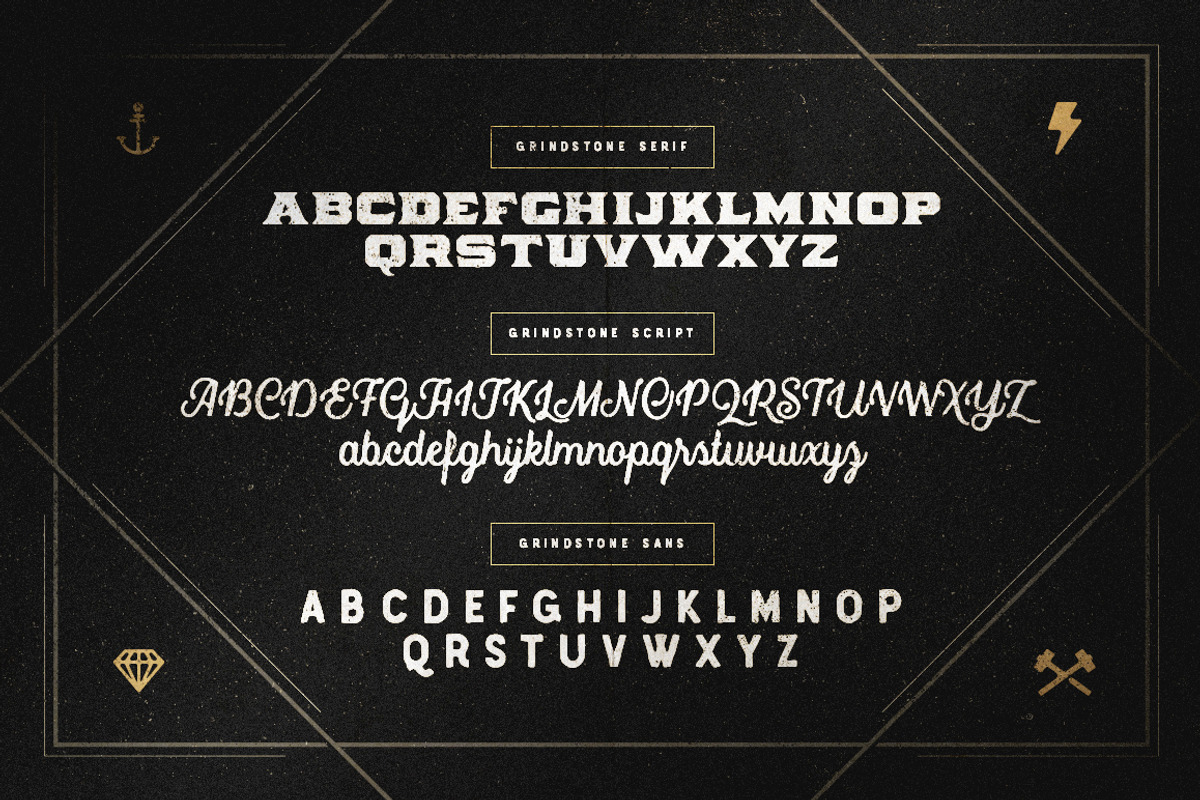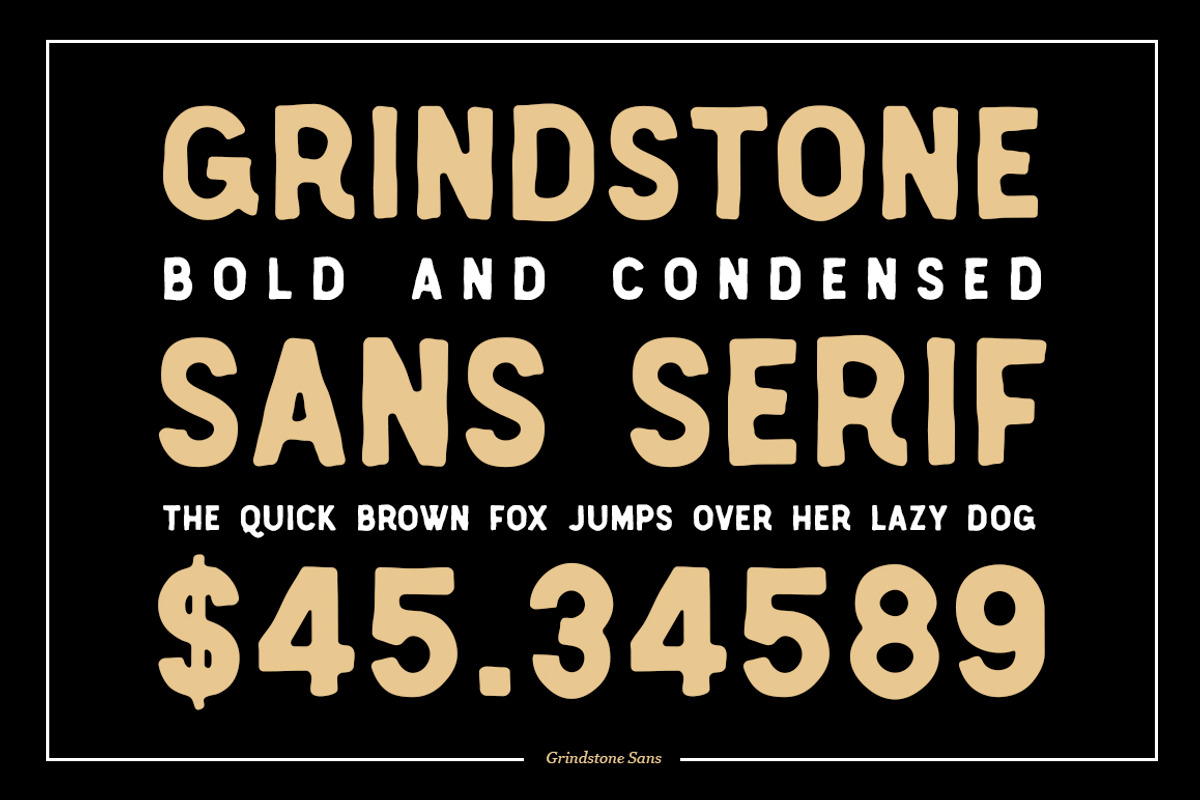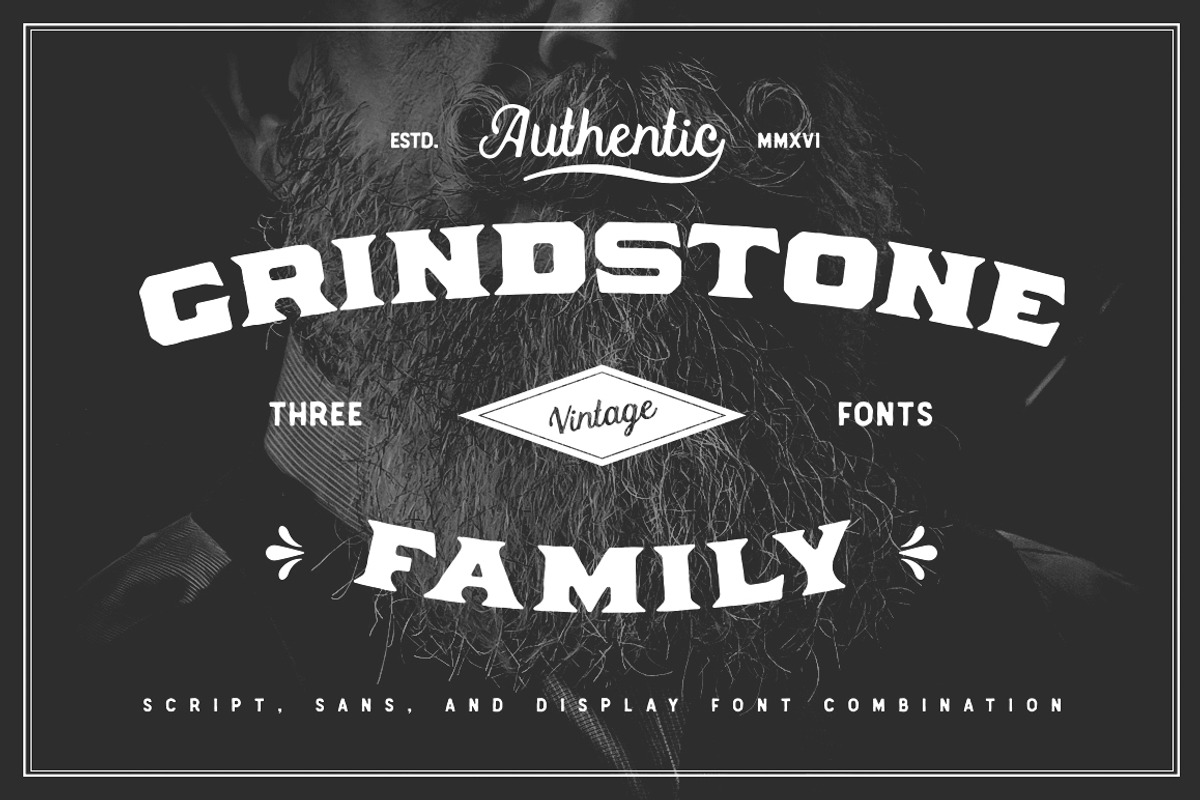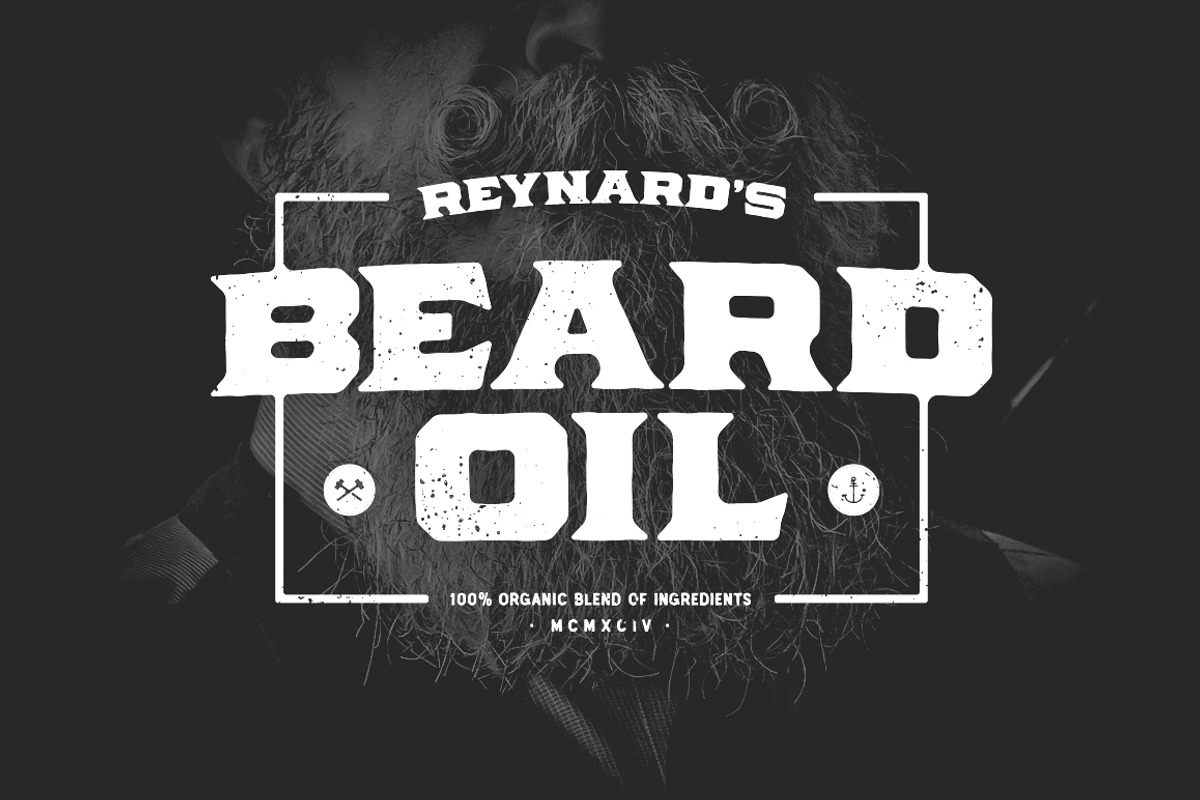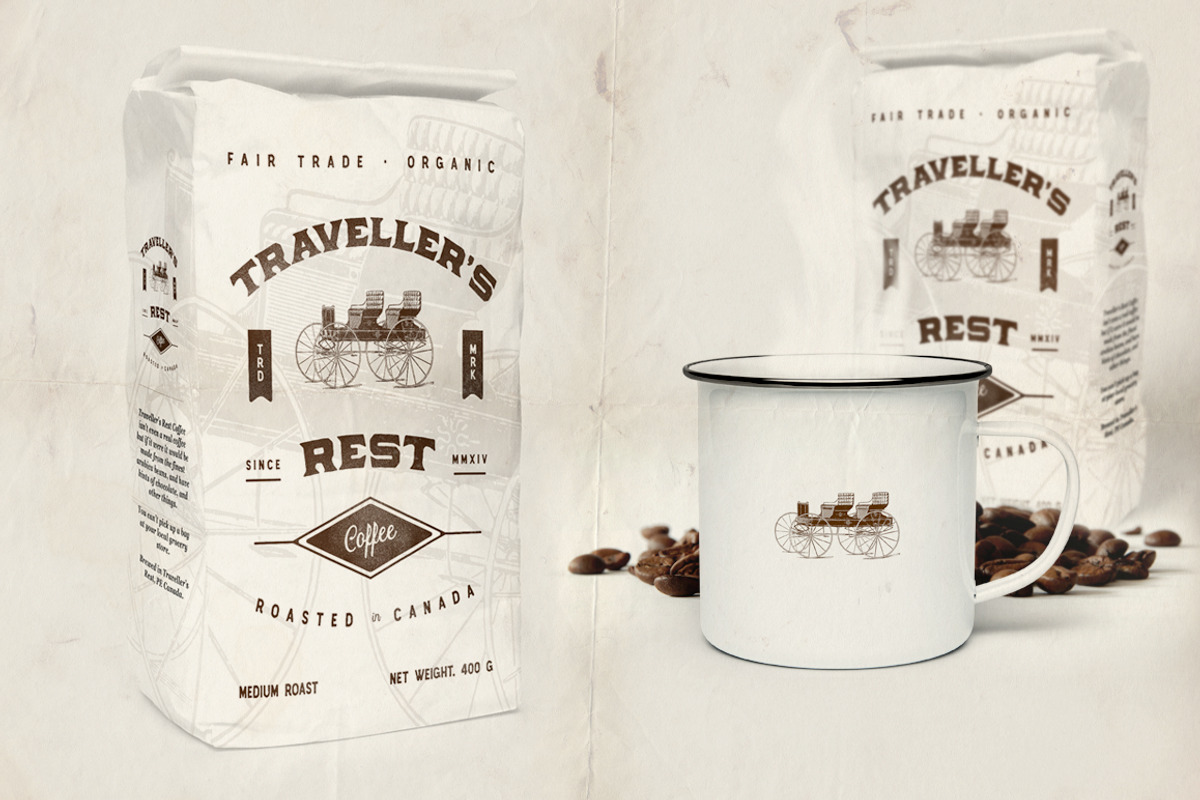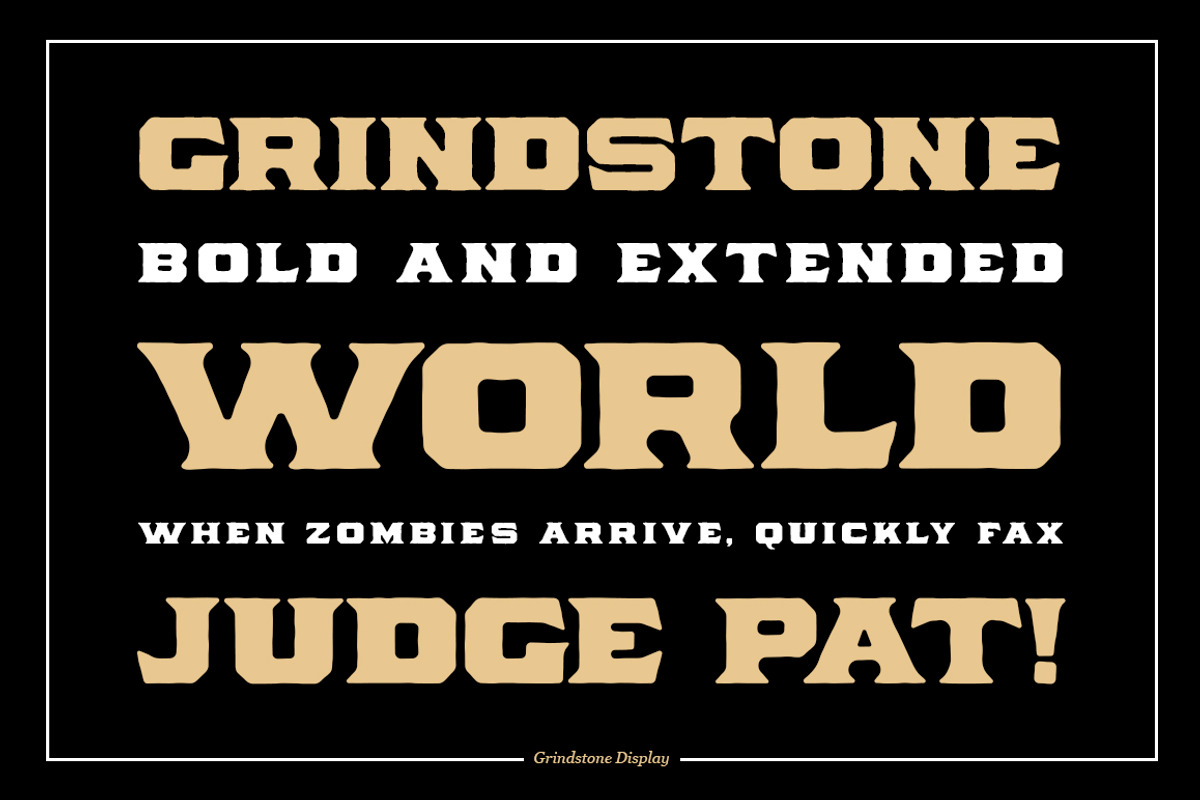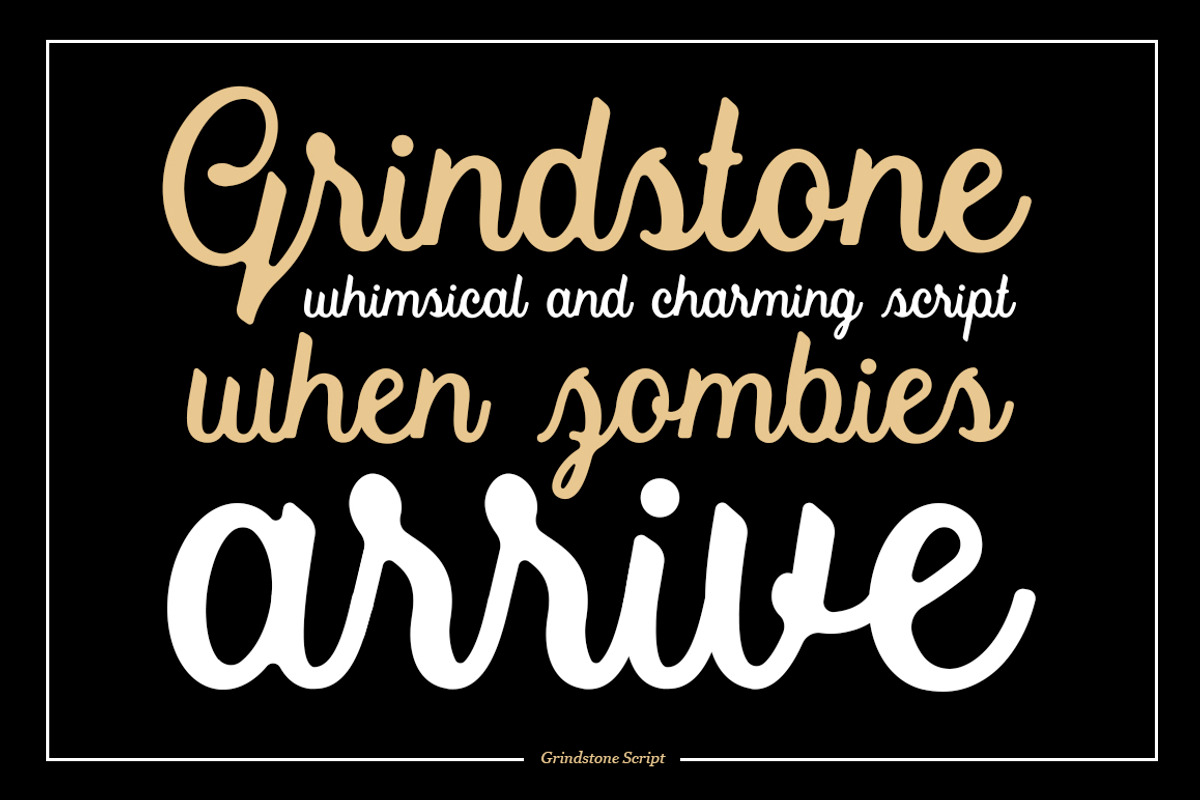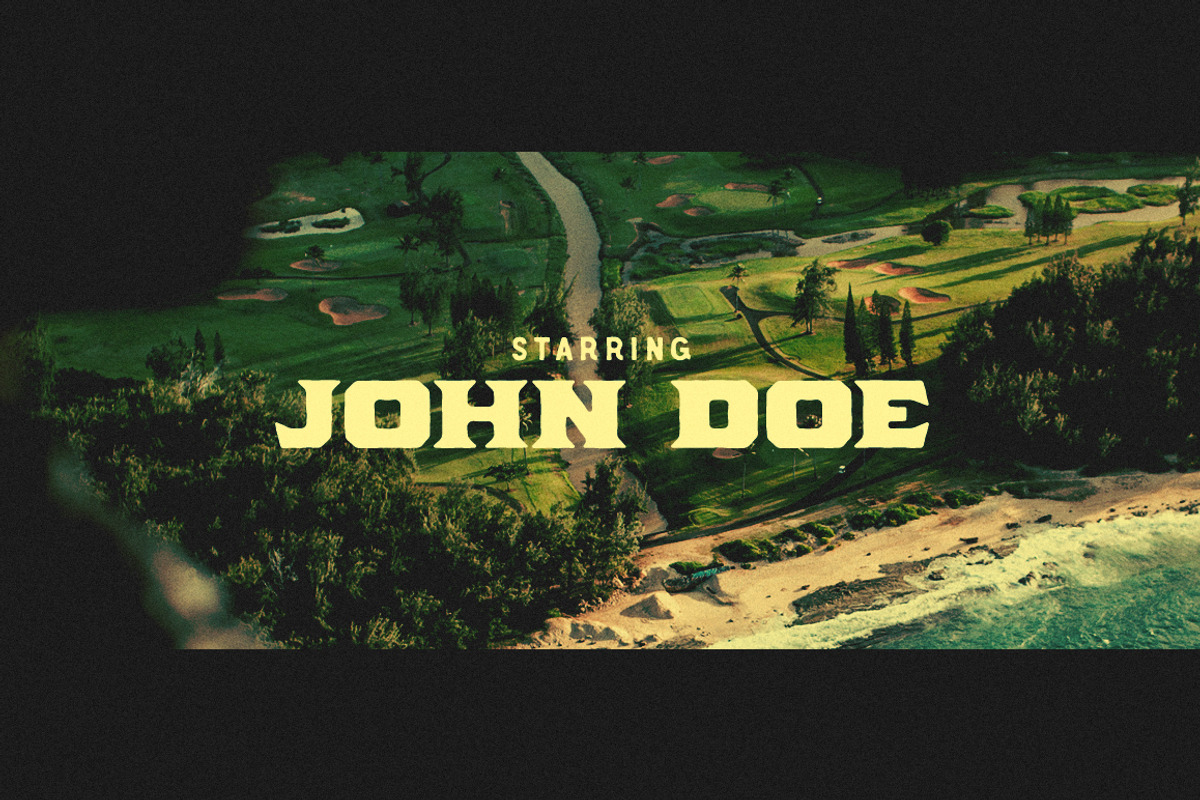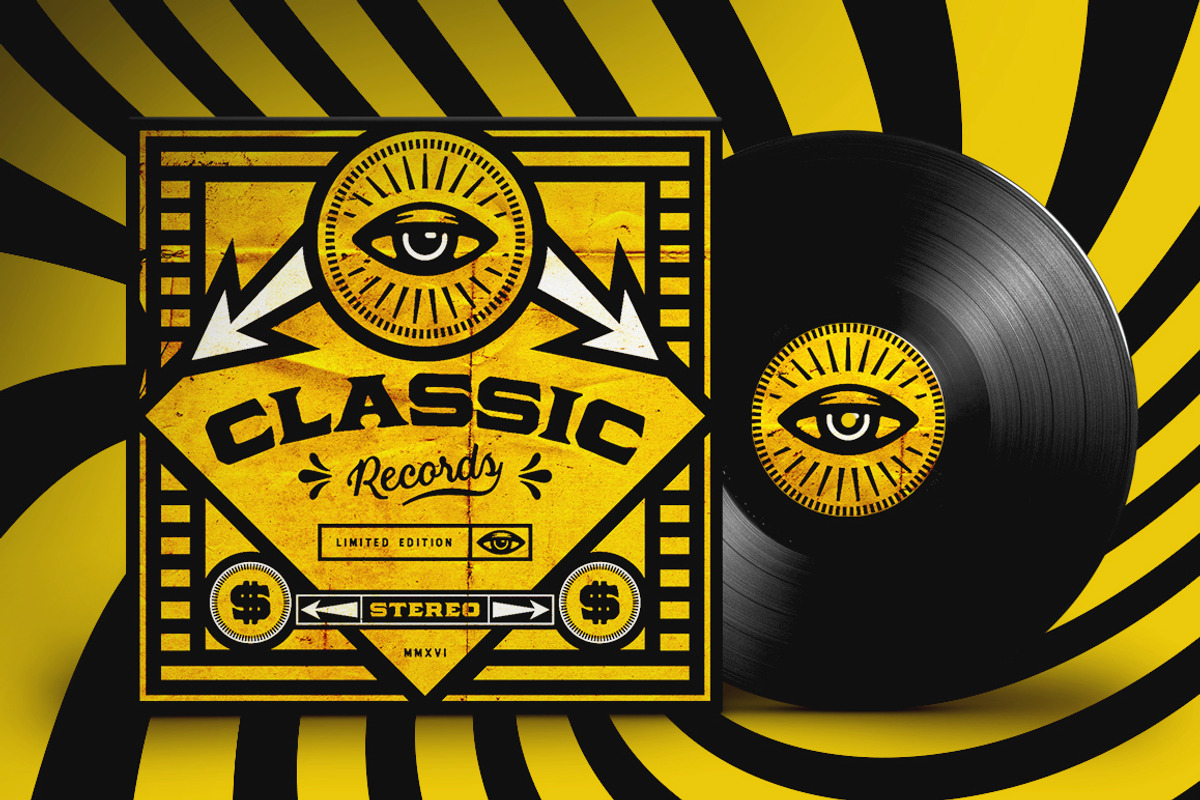
Grindstone Font Family
Grindstone is a new vintage inspired font family that consists of three distinct, and complementary fonts. A sans serif, a script, and a big bold display serif.
Perfect for branding, print media, web projects, and so much more, each font comes equipped with multilingual support and tons of character. Grindstone Script also comes packed with OpenType ligatures to ensure smooth transitions between letters, as well as decorative swashes.